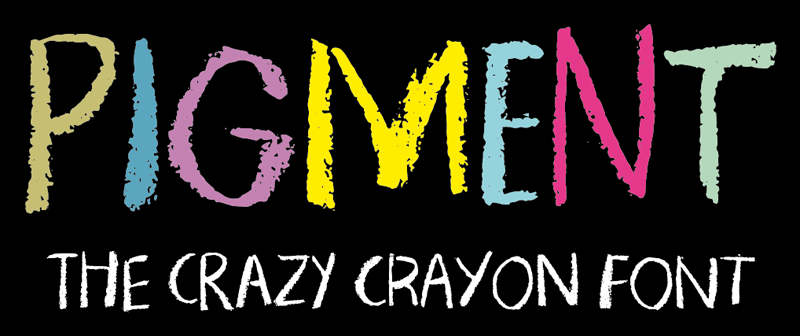
Font name: | Pigment |
Author: | Pizzadude |
Note by Pizzadude | |
Crayon font gone crazy! 8 different versions of each letter, and they cycle as you type! Great variation, and enough to confuse people about this being a font or real crayon writing! And of course, the font has got a large amount of accented characters as well! Download the FULL version here: http://www.myfonts.com/fonts/pizzadude/pigment/ |